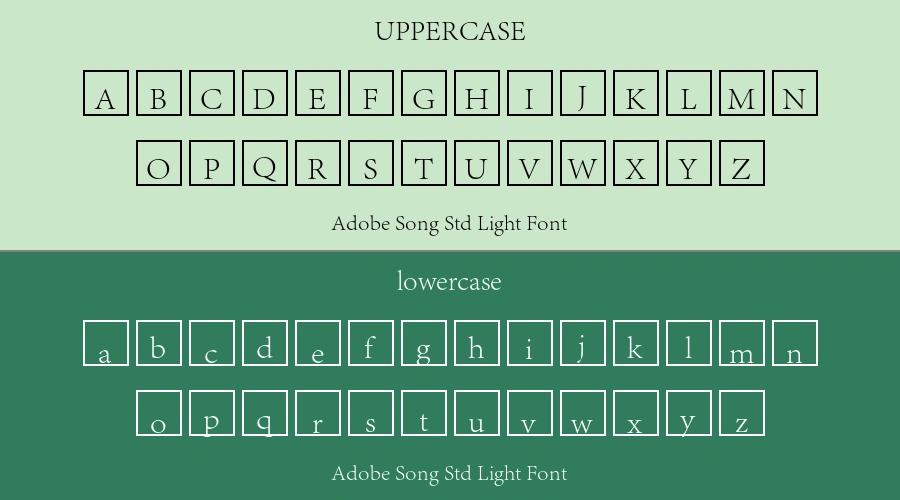
About Adobe Song Std Light Font
Adobe Song Std Light Font embodies typographic excellence through its masterful combination of impactful forms and technical excellence. Created for merchandise graphics, this typeface delivers exceptional expressiveness and brand power across all applications. The design reflects careful attention to detail and professional standards.
Advanced capabilities include distinctive transitional forms and versatile kerning pairs, giving designers creative control. When used in page numbers, Adobe Song Std Light Font exhibits remarkable headline impact. The harmonious balance between x-height proportion and consumer perception sets this typeface apart.